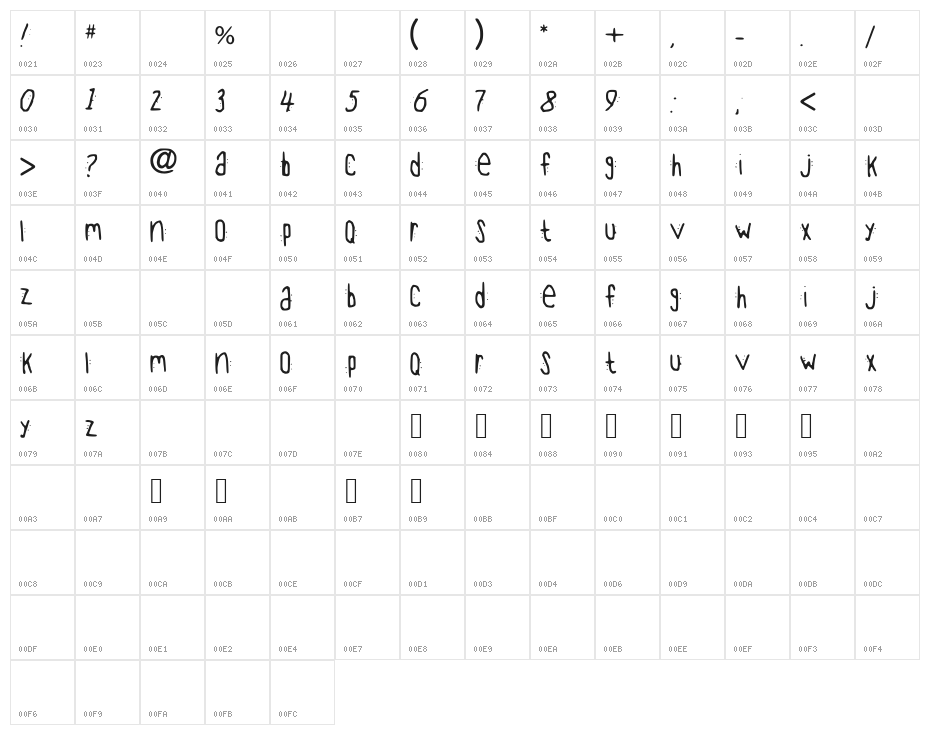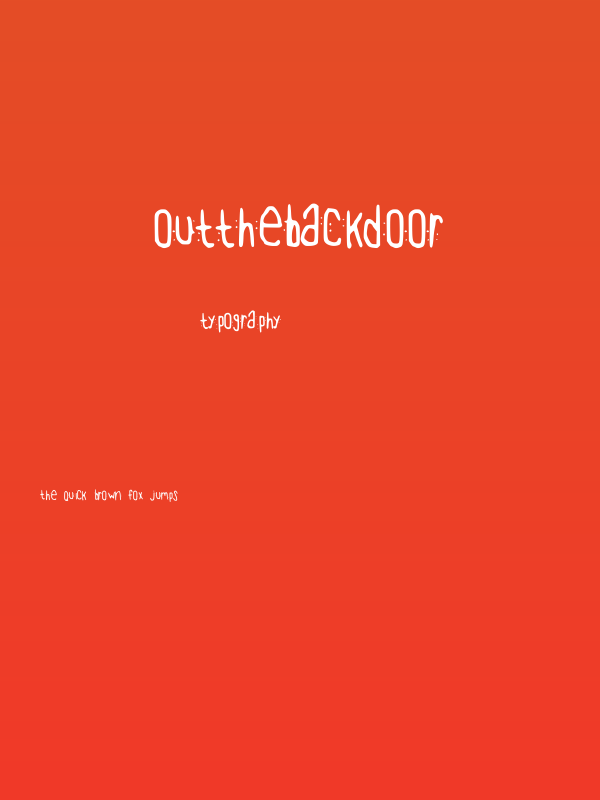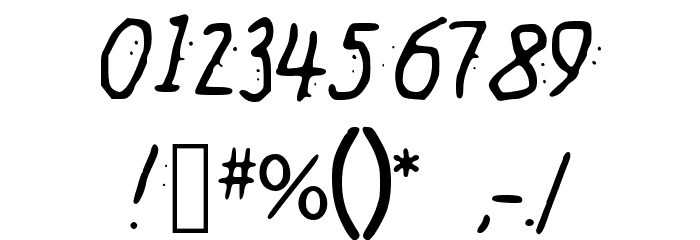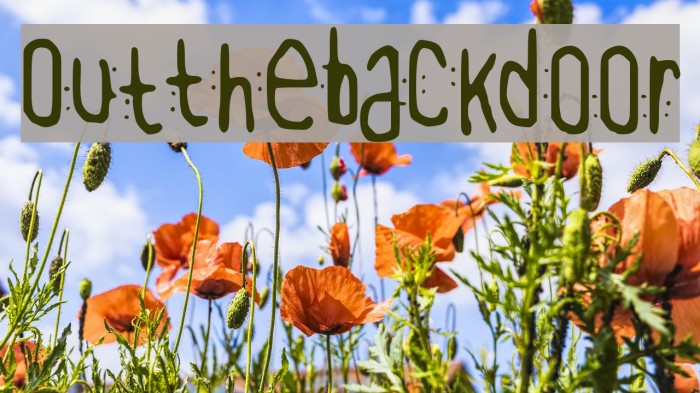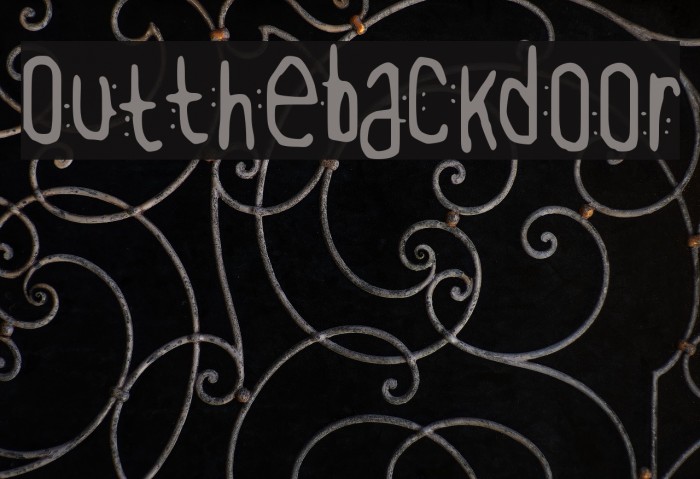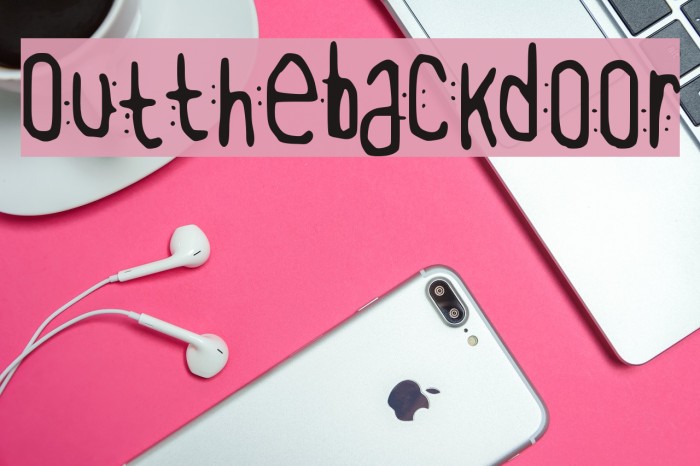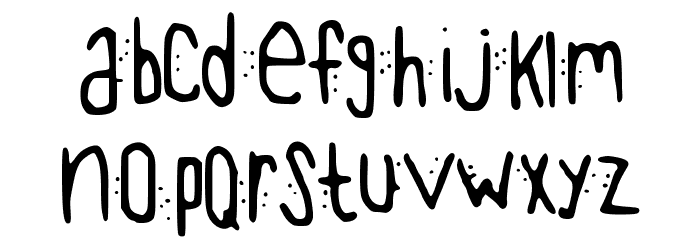
OutTheBackDoor Font
OutTheBackDoor Description
This font features a playful and whimsical design, characterized by its irregular, hand-drawn appearance. The letters are slightly elongated with uneven strokes, giving it a casual and informal feel. The inclusion of small decorative dots adds a unique touch, enhancing its quirky style. The numbers and special characters maintain the same playful aesthetic, making it suitable for creative and artistic projects. The overall design is consistent across uppercase, lowercase, and numerals, providing a cohesive look.
| Use Case | Headlines, Creative projects, Informal text. |
| Proposed Projects | Ideal for children's books, creative posters, casual invitations, and artistic branding. |